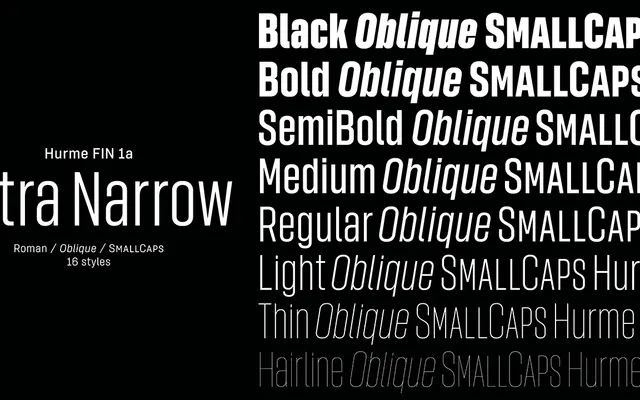
Hurme FIN 1a Extra Narrow
An extra narrow cut of Hurme FIN 1a, a monolinear grotesque with eight weights and obliques drawn across a nine-width design space.
The Extra Narrow subfamily sits within the Hurme FIN 1a family, a simplified monolinear grotesque spanning nine widths from Compressed to Expanded and eight weights from Hairline to Black. Horizontal stroke terminals and a proportionally increasing x-height towards the narrower variants characterise the design. Each purchase of FIN 1a includes corresponding weights of FIN 1b, an alternative with angular, monospace-inspired characters and slab serifs.
A simplified monolinear sans-serif with horizontal stroke terminals and short ascenders and descenders, placing it firmly in the grotesque tradition. The extra narrow width is one of nine across the wider FIN 1a design space.